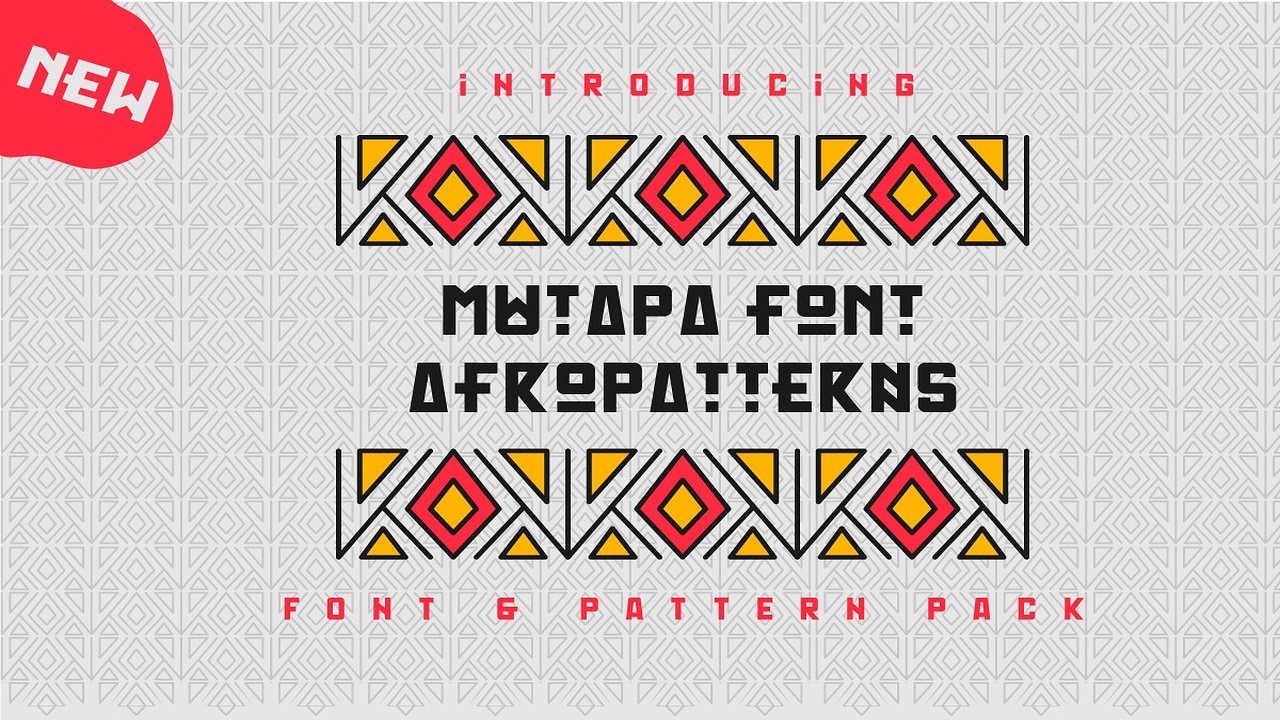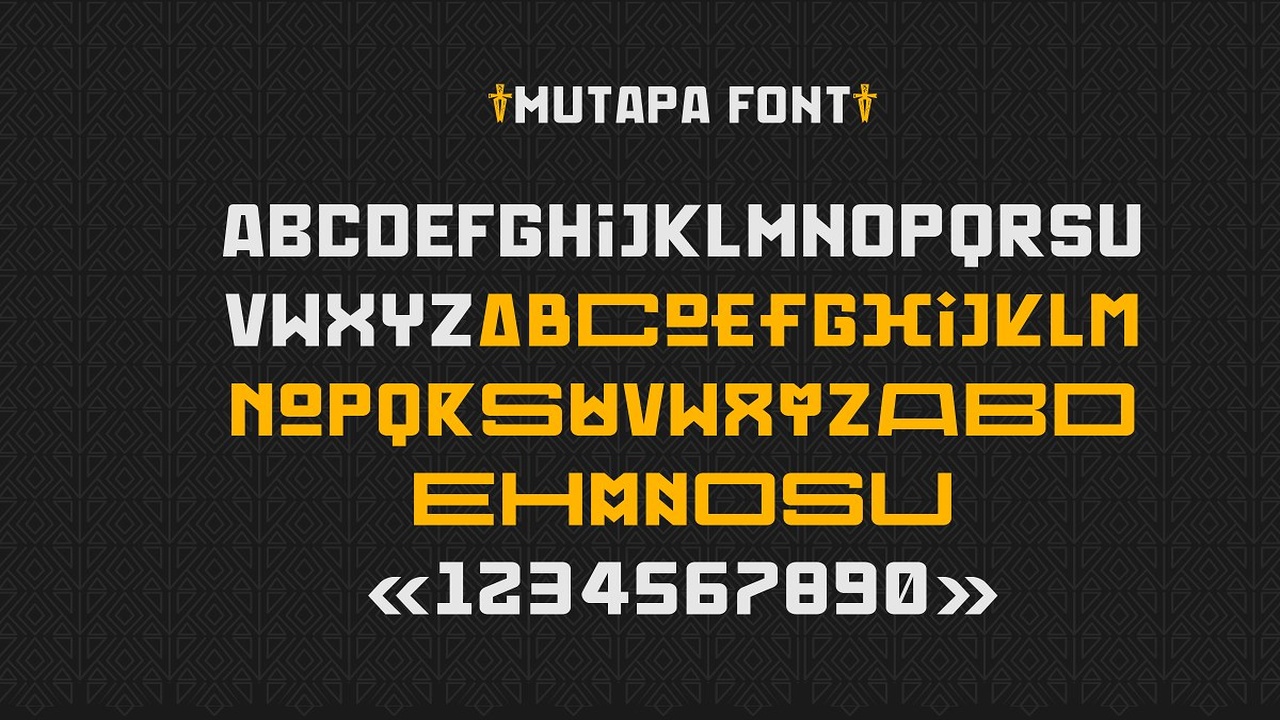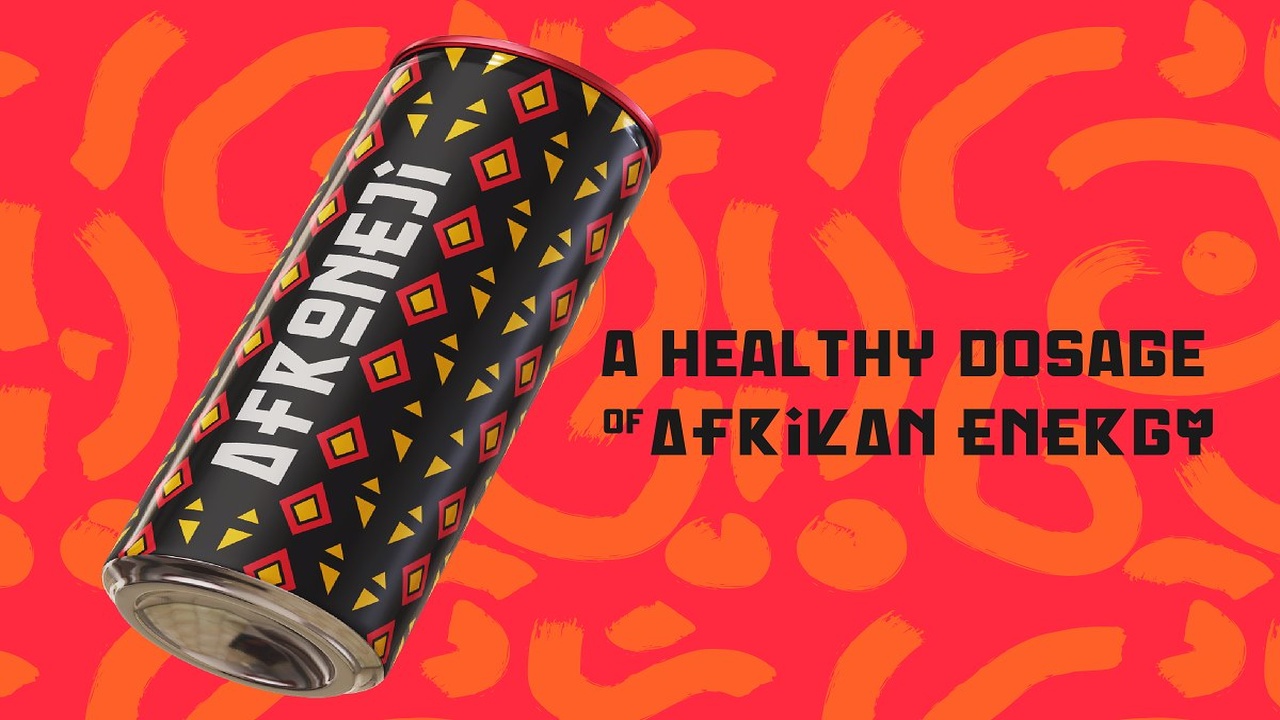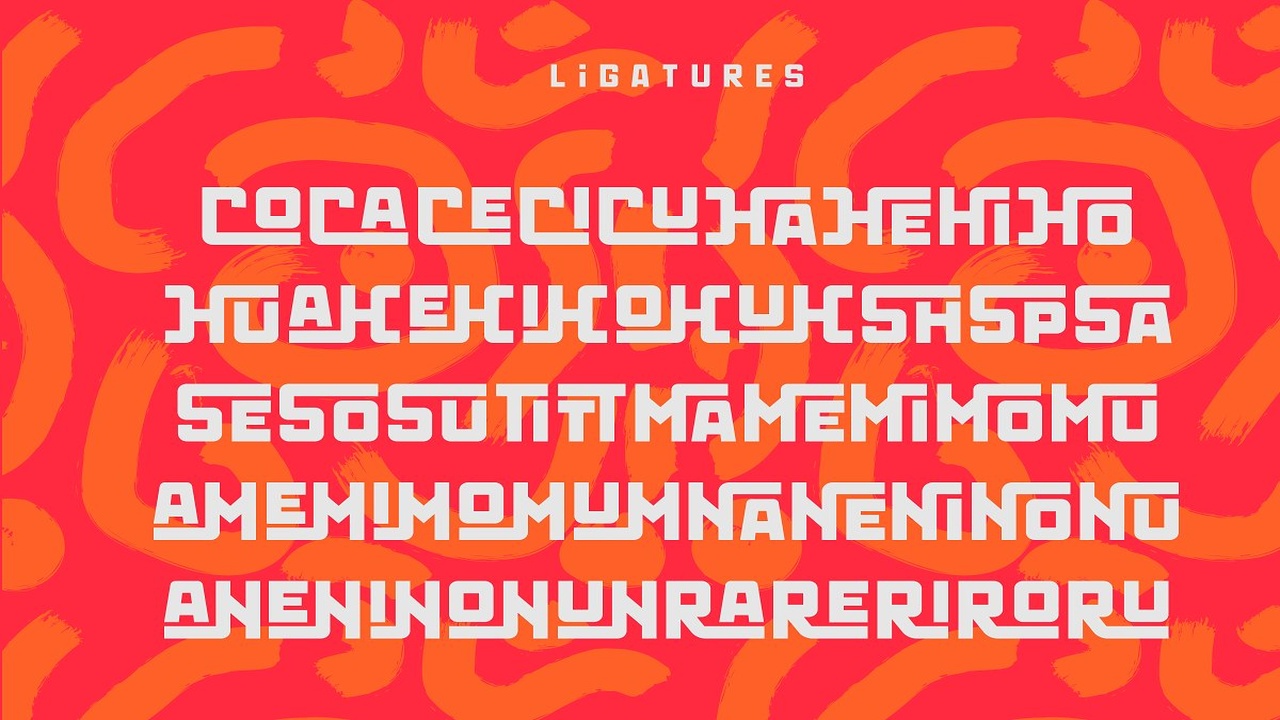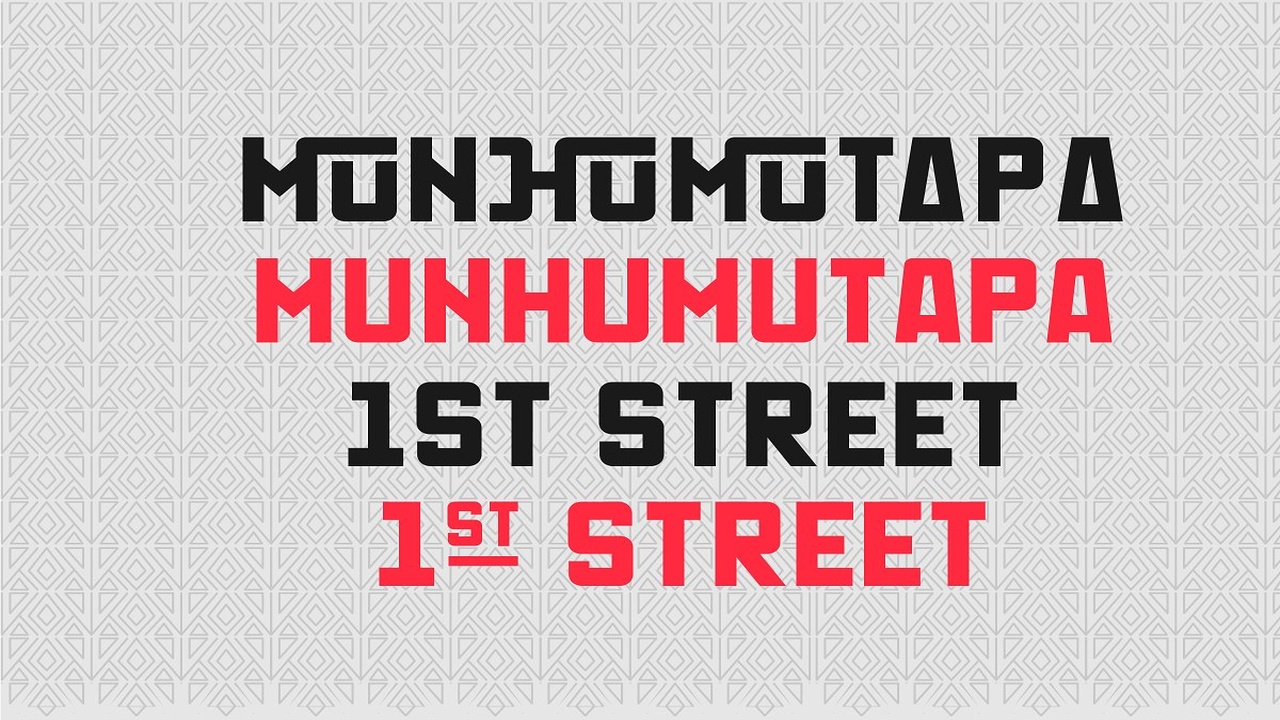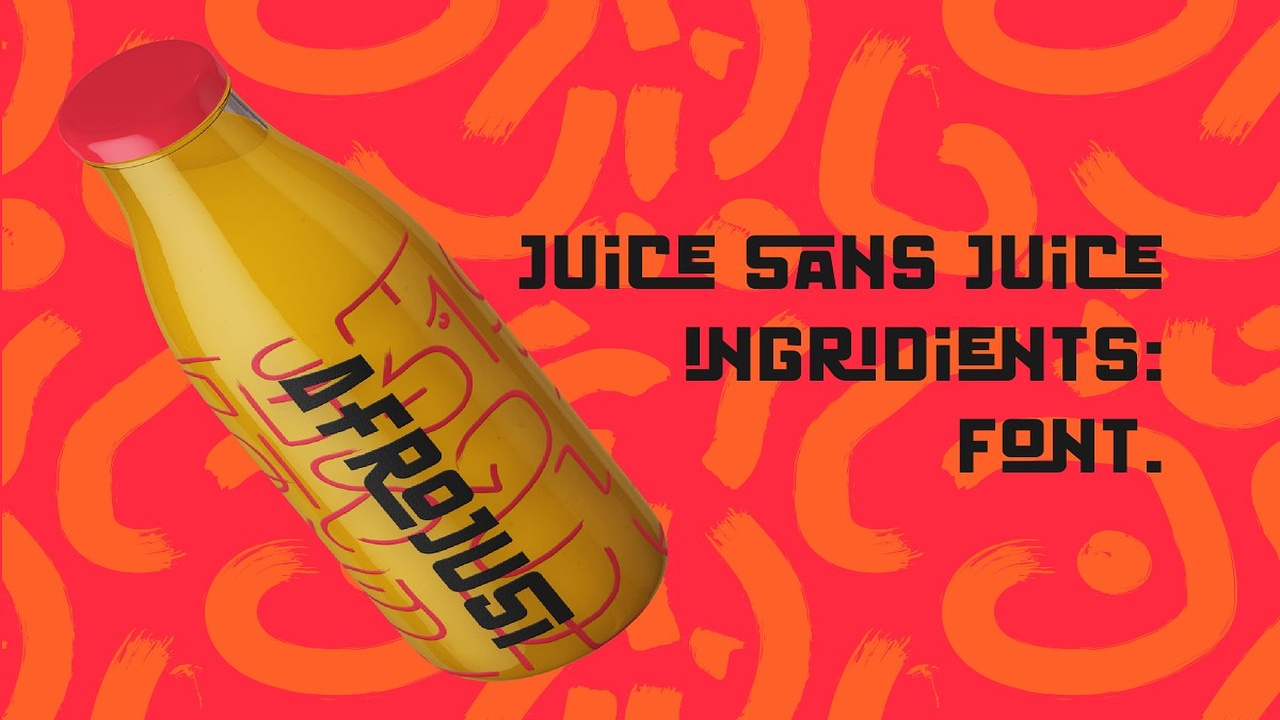
About the Mutapa and Patterns Extra Font
Mutapa font as an Afrikan inspired display font, Available OpenType features makes it easy for you to create afrikan patterns and make fun & interesting layouts, These Opentype features such as alternate characters and ligatures gives it lots of combination possibilities and makes it great for display purposes! It is great for logotypes, stickers, poster titles and other display type purposes